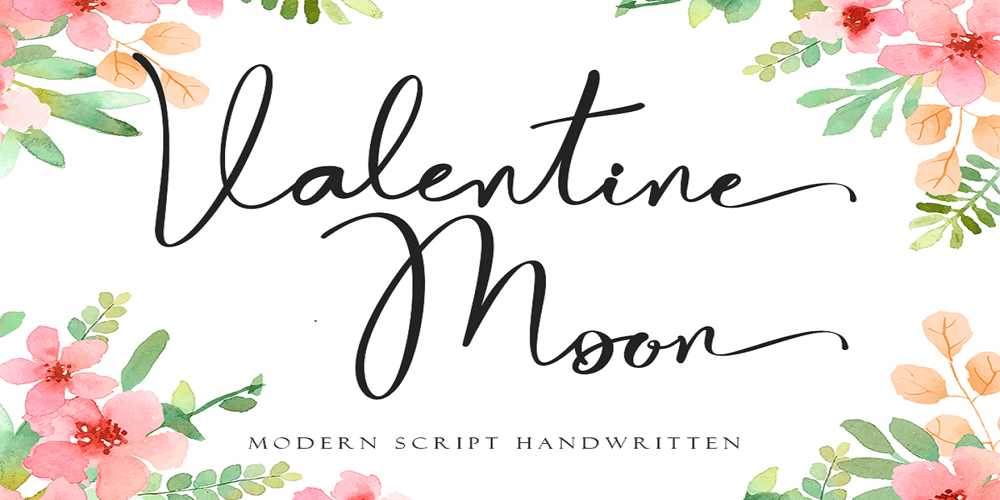
Valentine Moon
Valentine Moon font
Valentine Moon Font Family was designed by Isroni Yoga Prasetya and published by Yoga Letter. Valentine Moon contains 1 styles and family package options. Valentine Moon is a unique and beautiful font. This font is decorated with natural letters and is very unique. Not only that, the decorations on the letters are also specially designed so that they are very easy to use. This font is perfect for Valentine’s, weddings, invitations, birthdays, promotions on social media, product promotion, beauty, logos, branding, banners, posters, typography.